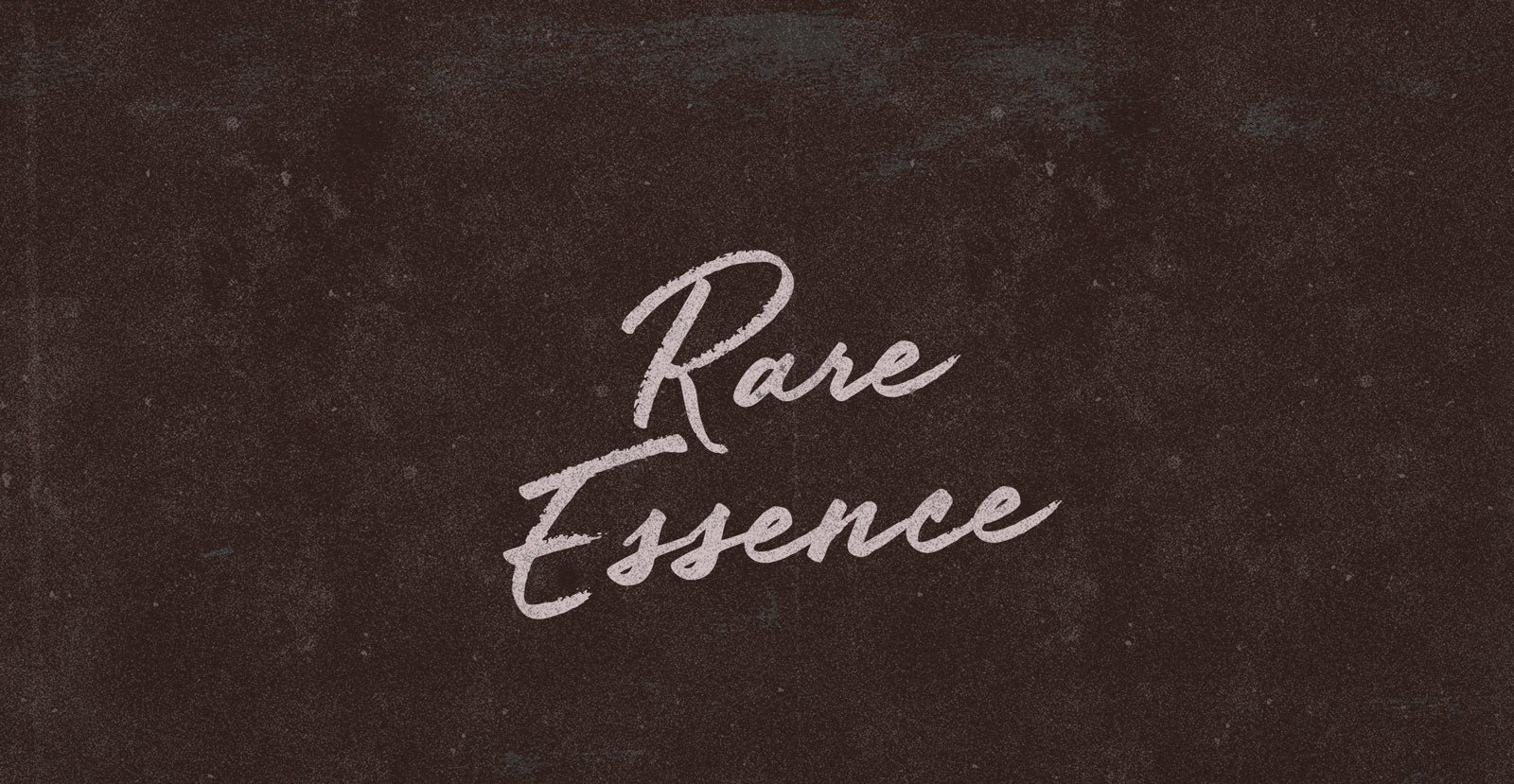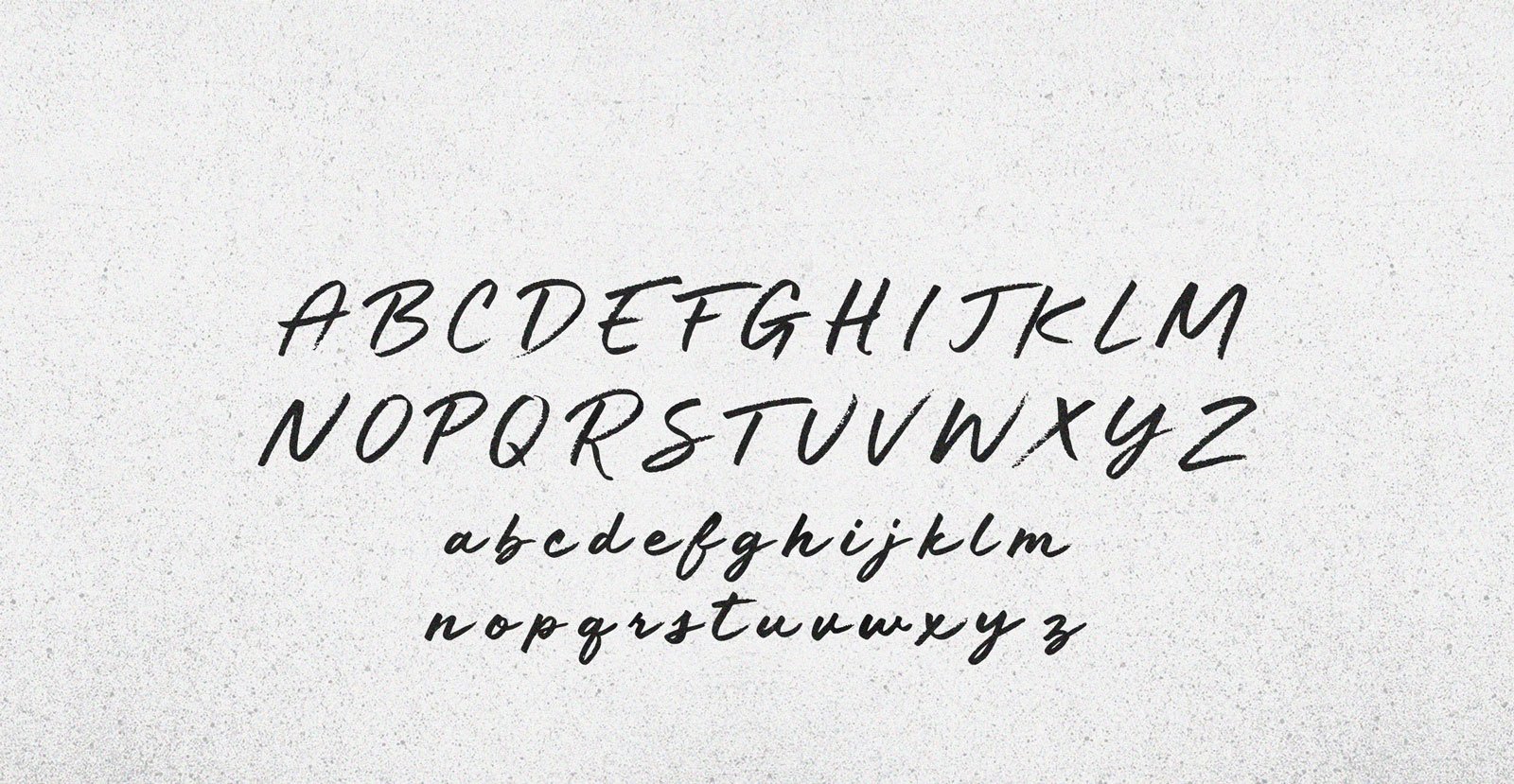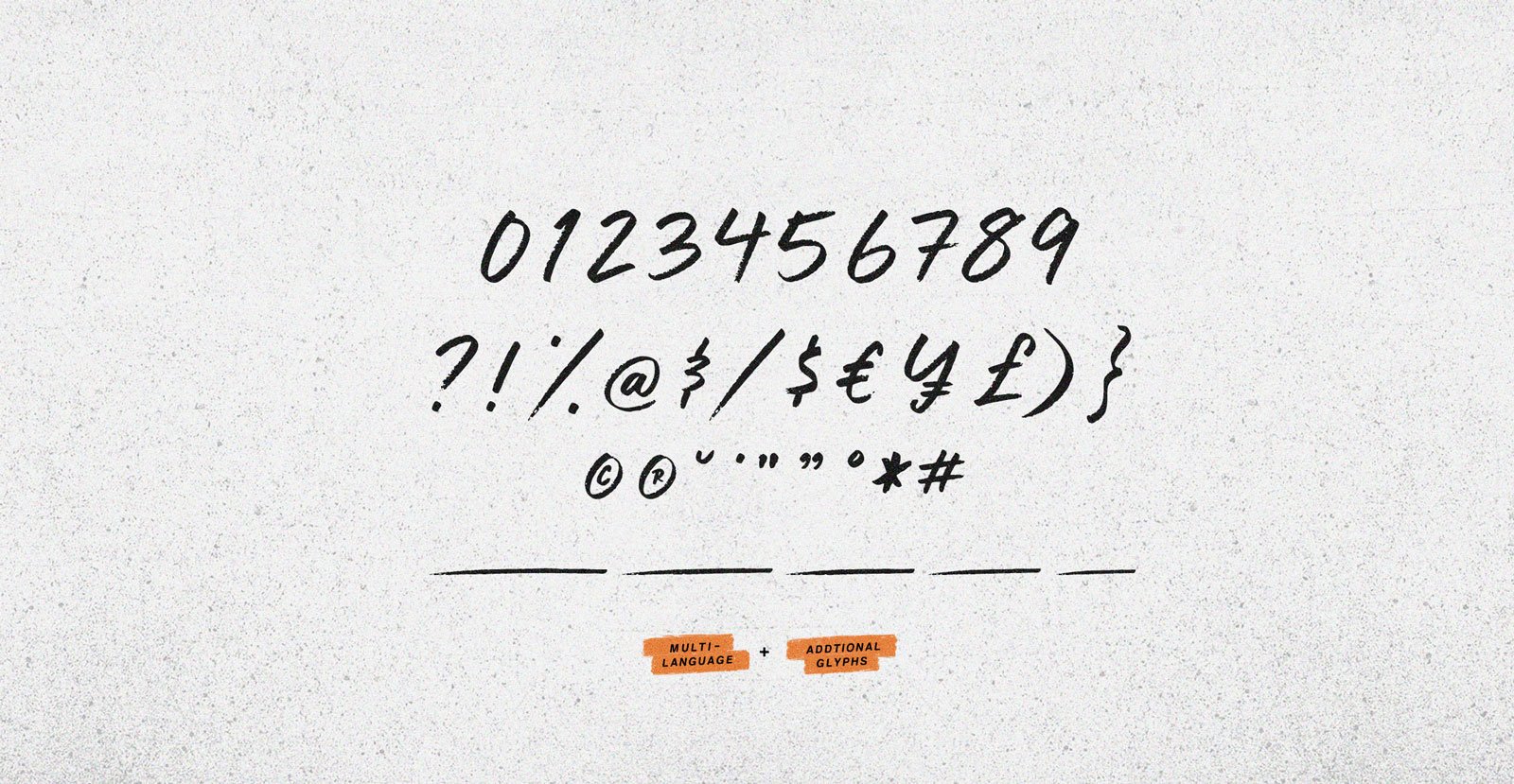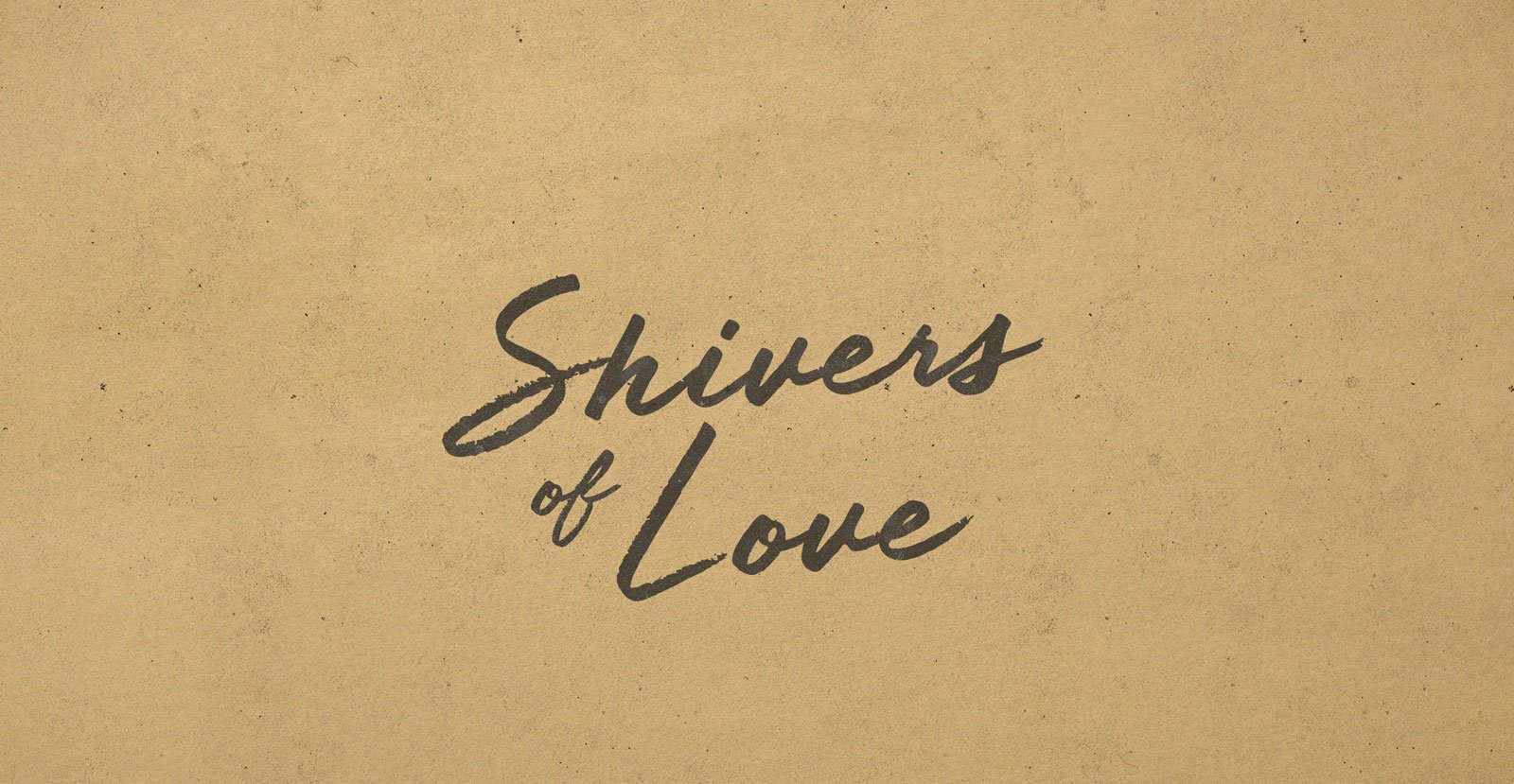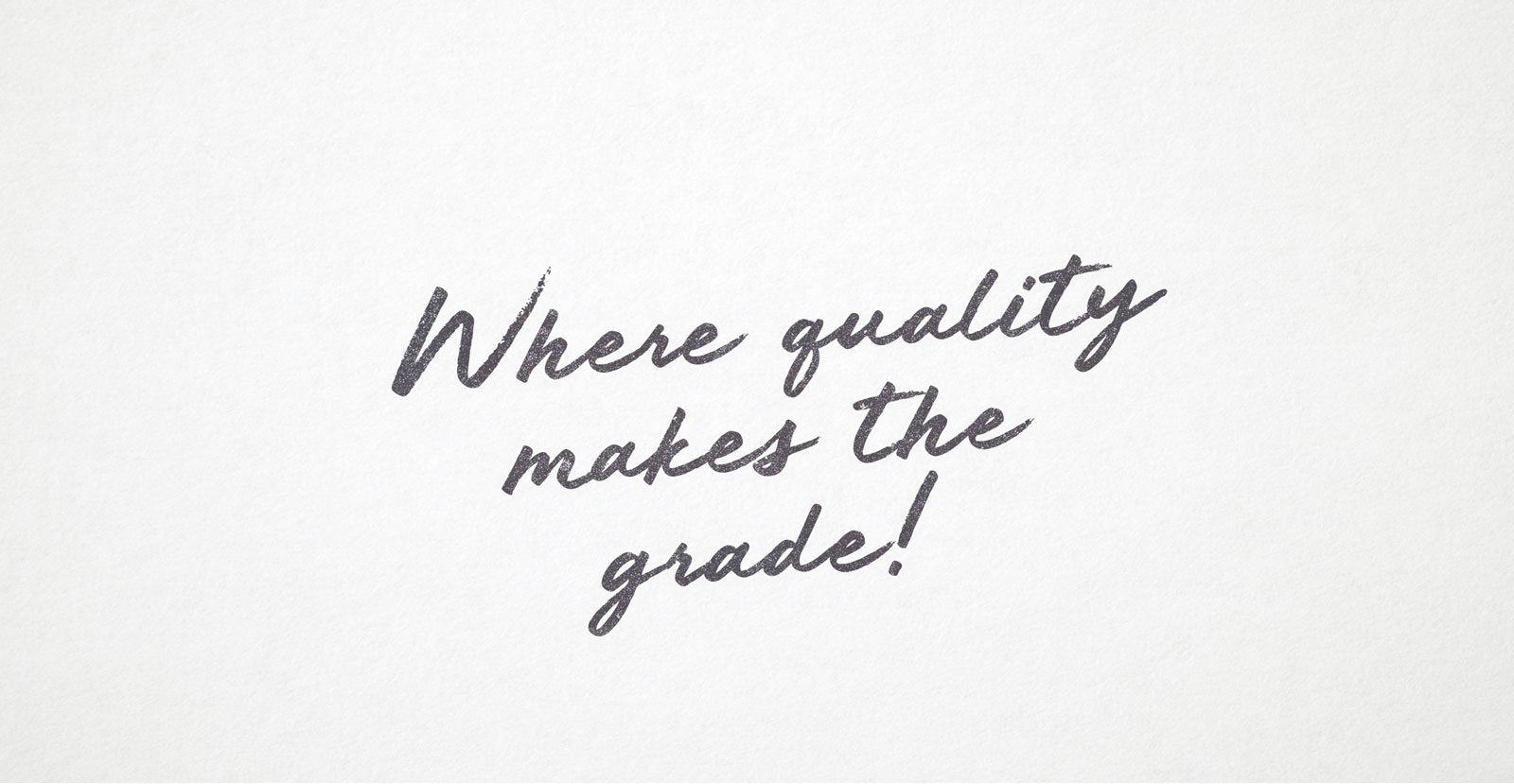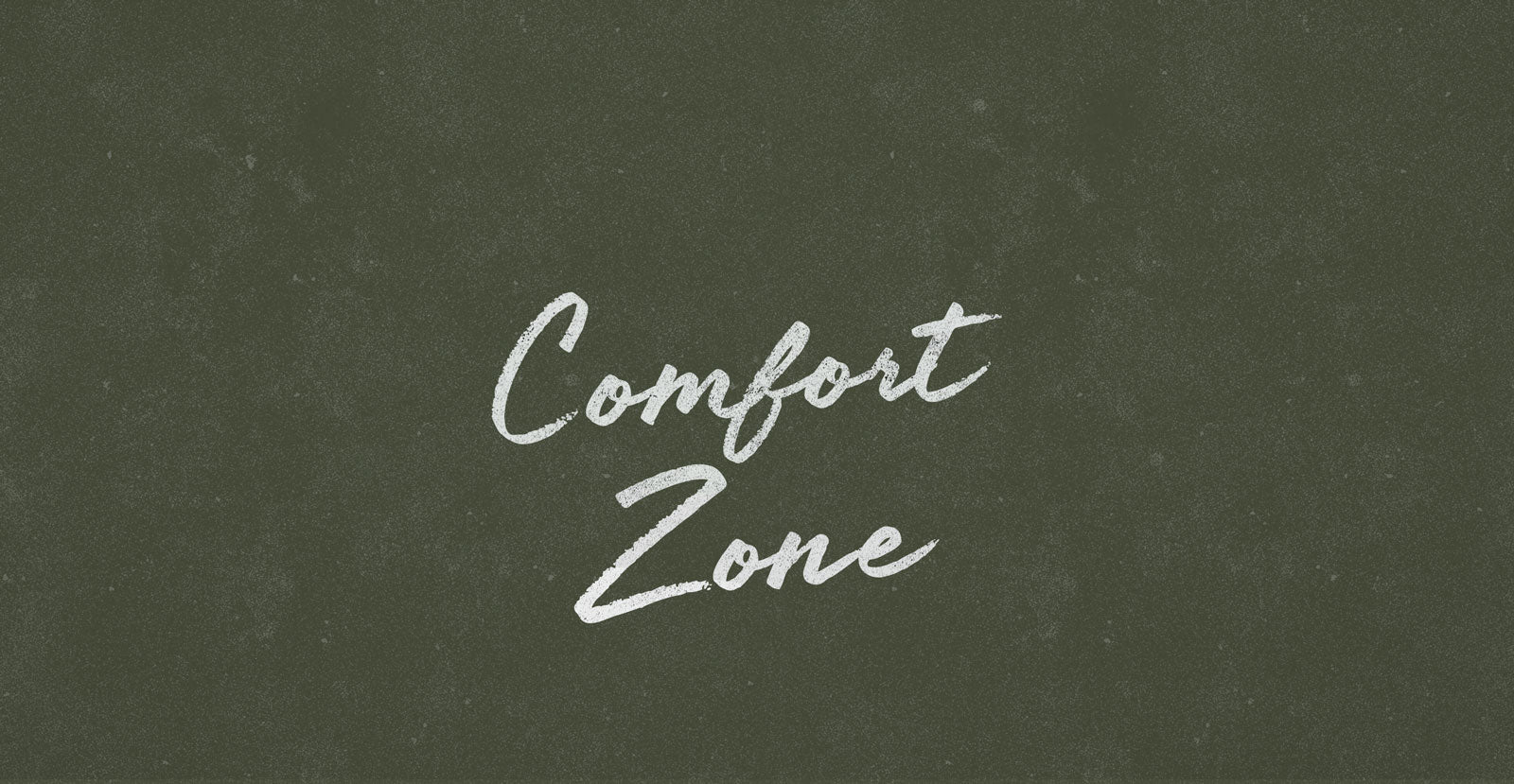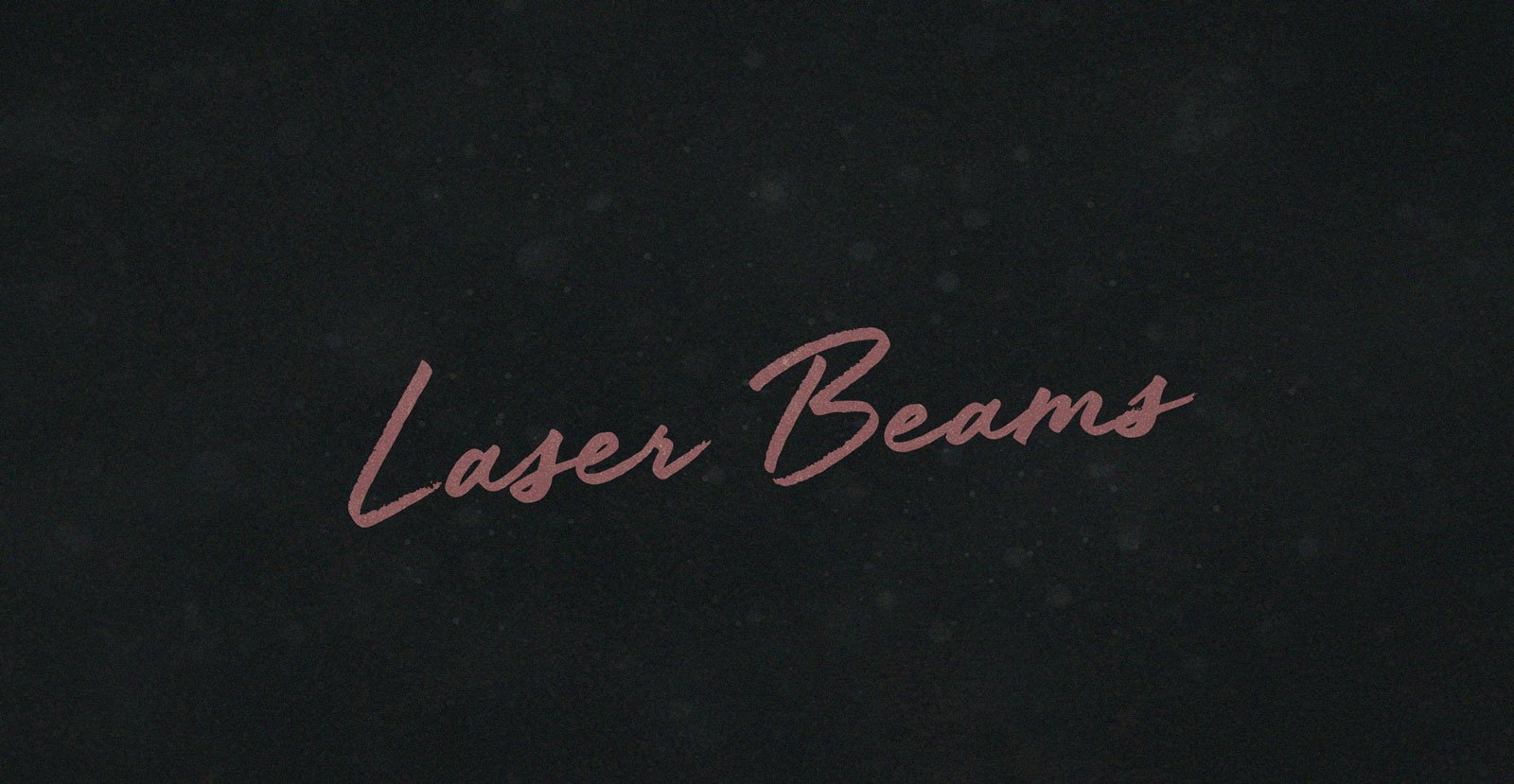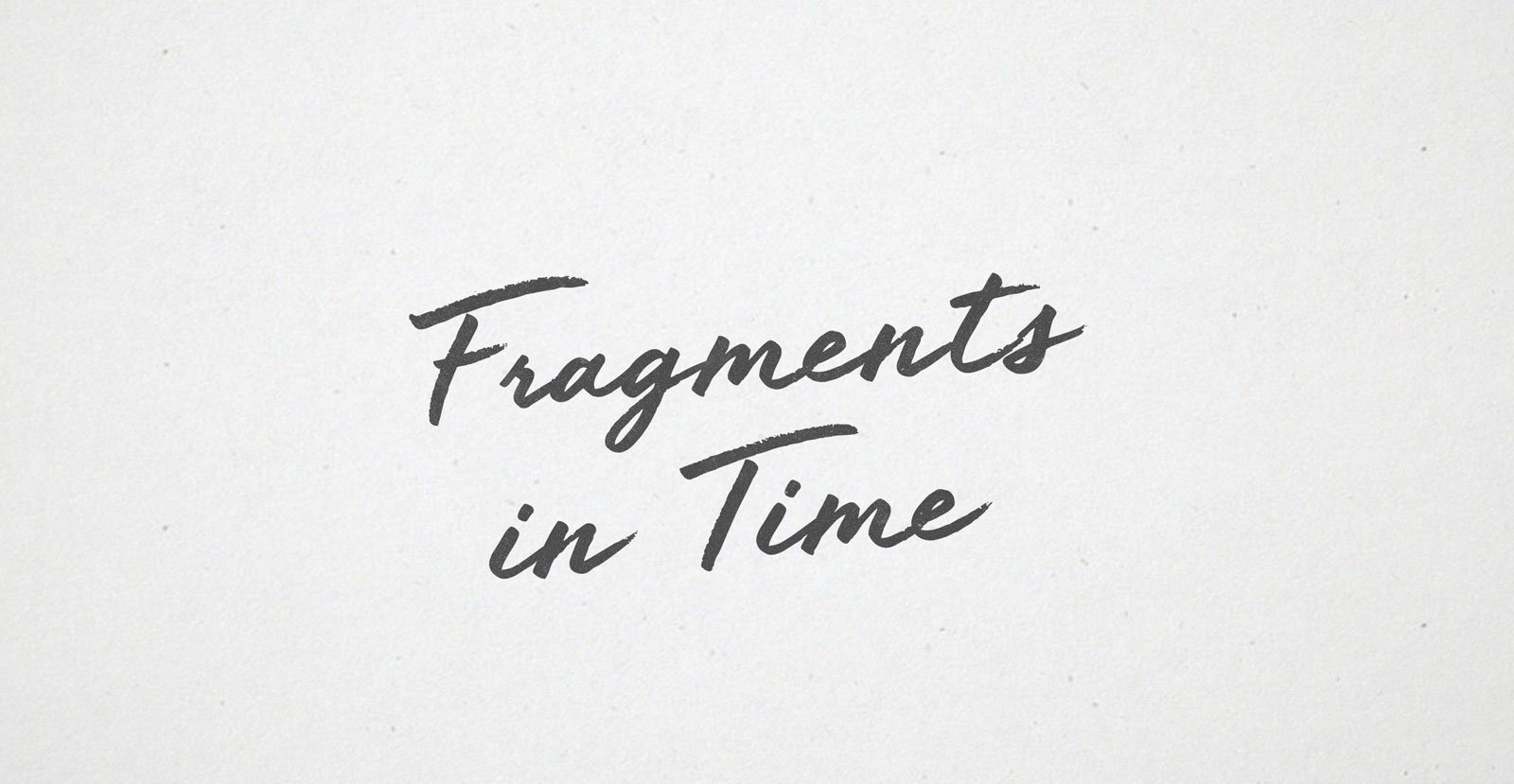
Rare Essence
Written in an alphabet unique in the sense of idealized rarity. Not the projection of a shadow that we only saw once, but Rare Essence: The substance of all things, for your mind one time.
• Underlines